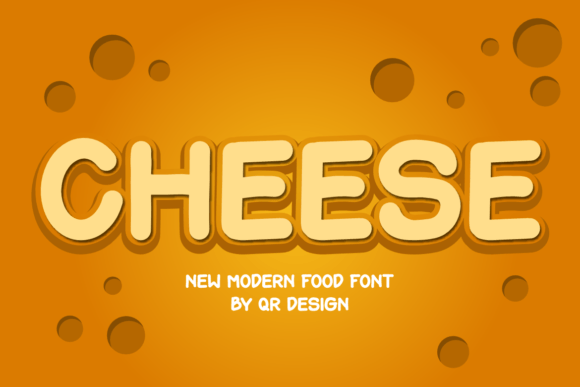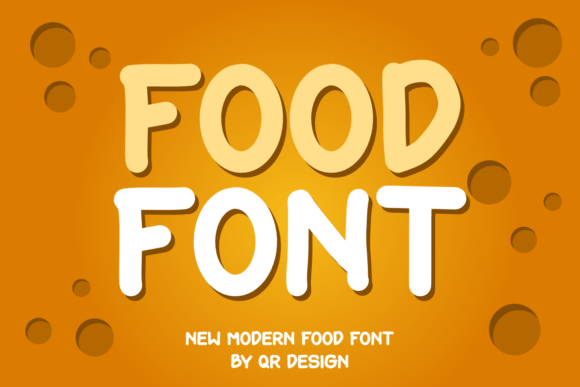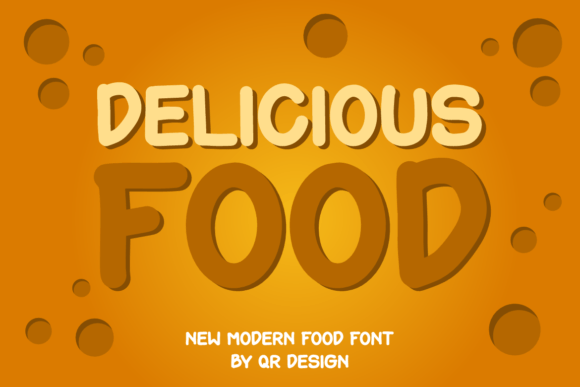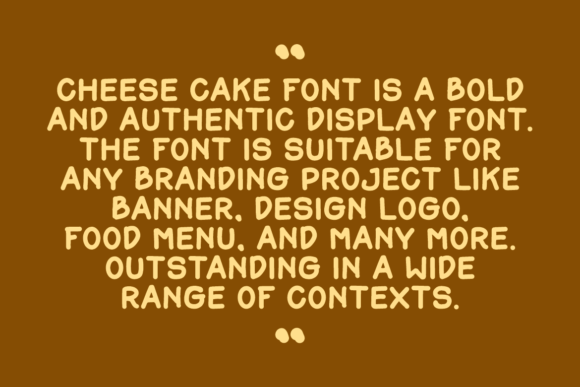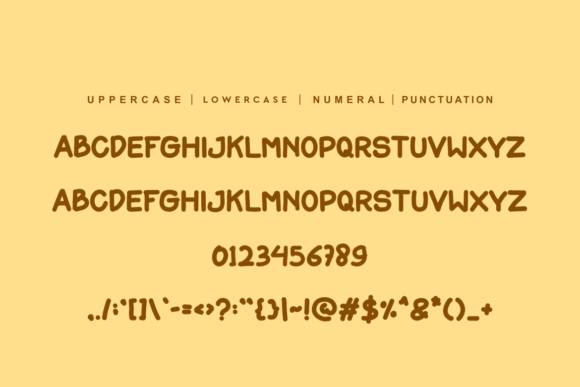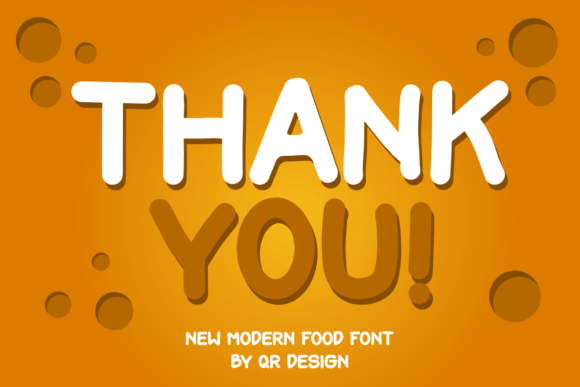
Introducing Cheese Cake Font: The Perfect Addition to Your Design Collection
Are you tired of using the same old fonts in your designs? Look no further! Cheese Cake Font is a fun and bright handwritten font that’s sure to add a touch of personality to your projects. This font reads as strong, confident, and dynamic, making it perfect for designers and crafters looking to add some character to their work.
What Makes Cheese Cake Font So Special?
Cheese Cake Font is a unique and eye-catching font that’s sure to stand out from the crowd. Its handwritten style gives it a personal and approachable feel, making it perfect for a wide range of design projects. Whether you’re working on a logo, a poster, or a social media graphic, Cheese Cake Font is sure to add a touch of whimsy and fun.
One of the things that sets Cheese Cake Font apart is its strong and confident appearance. This font is not for the faint of heart – it’s bold, it’s bright, and it’s sure to grab attention. Whether you’re looking to make a statement or simply add some visual interest to your design, Cheese Cake Font is the perfect choice.
Uses for Cheese Cake Font
So, what can you use Cheese Cake Font for? The possibilities are endless! Here are just a few ideas to get you started:
- Logos and branding: Cheese Cake Font is perfect for creating unique and eye-catching logos that will help your brand stand out.
- Posters and flyers: Add some visual interest to your posters and flyers with Cheese Cake Font’s bold and playful style.
- Social media graphics: Make your social media graphics stand out with Cheese Cake Font’s fun and dynamic appearance.
- Invitations and cards: Add a personal touch to your invitations and cards with Cheese Cake Font’s handwritten style.
- Packaging and labels: Make your packaging and labels stand out with Cheese Cake Font’s bold and eye-catching appearance.
Why Designers and Crafters Love Cheese Cake Font
So, why do designers and crafters love Cheese Cake Font? Here are just a few reasons:
- It’s easy to read: Despite its bold and playful style, Cheese Cake Font is surprisingly easy to read, making it perfect for designs where you need to communicate a message.
- It’s versatile: Cheese Cake Font can be used for a wide range of design projects, from logos and branding to posters and social media graphics.
- It’s fun: Let’s face it – Cheese Cake Font is just plain fun! It’s the perfect way to add some personality and whimsy to your designs.
How to Use Cheese Cake Font in Your Designs
Using Cheese Cake Font in your designs is easy! Here are just a few tips to get you started:
- Experiment with different colors: Cheese Cake Font looks great in a wide range of colors, so don’t be afraid to experiment and find the perfect hue for your design.
- Play with different sizes: Cheese Cake Font can be used at a wide range of sizes, from large and bold to small and subtle.
- Combine it with other fonts: Cheese Cake Font pairs well with a wide range of other fonts, so don’t be afraid to get creative and try out different combinations.
In conclusion, Cheese Cake Font is a fun and bright handwritten font that’s perfect for designers and crafters looking to add some character to their work. Its strong and confident appearance makes it perfect for a wide range of design projects, from logos and branding to posters and social media graphics. So why not give Cheese Cake Font a try and see how it can add some personality and whimsy to your designs?
With its ease of use, versatility, and fun appearance, Cheese Cake Font is sure to become a favorite in your design collection. So go ahead, get creative, and see what amazing designs you can come up with using Cheese Cake Font!